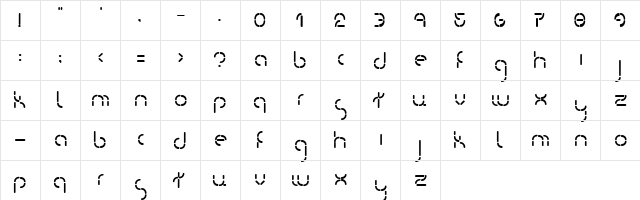
Kevlr Suit Regular
Design Context for Kevlr Suit Typeface
Kevlr Suit takes a measured approach to typography — its balanced proportions and neutral character make it a reliable workhorse for both digital and print work.